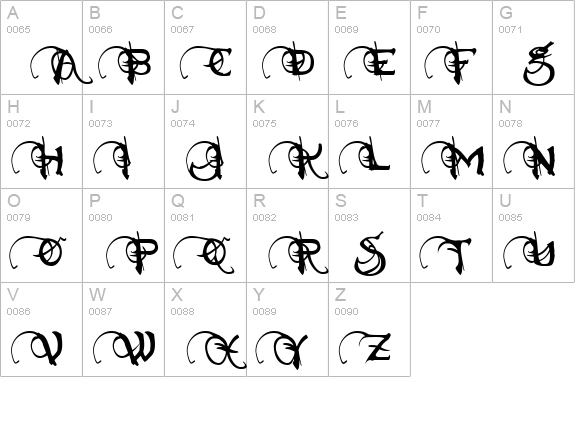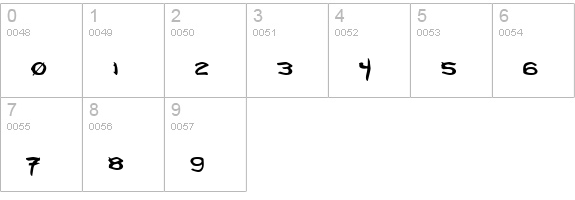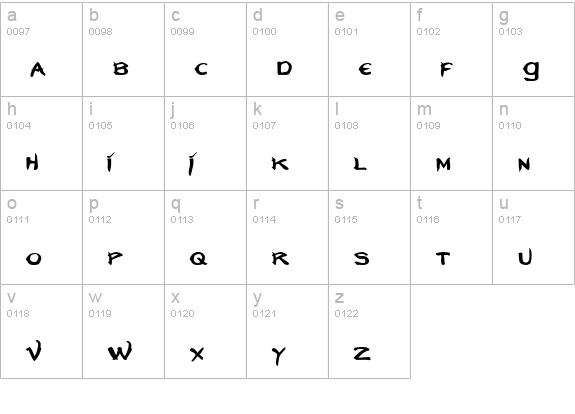
Neverwinter Normal Font Details
Neverwinter Normal is the standard, neutral variant in the Neverwinter typeface family \xE2\x80\x94 well suited to general body text, paragraphs, and standard typographic work.
Neverwinter Normal font is a versatile and stylish typeface that is perfect for a wide range of design projects. With its clean lines and classic design, this font exudes sophistication and elegance. Whether you're creating a professional presentation or designing a sleek logo, Neverwinter Normal is sure to make a lasting impression. The best part? Neverwinter Normal font is completely free to download at FontsMarket.com. This means you can enhance your projects with this beautiful font without breaking the bank. Don't miss out on the opportunity to add this timeless typeface to your font collection today. Download Neverwinter Normal font now and elevate your designs to the next level.